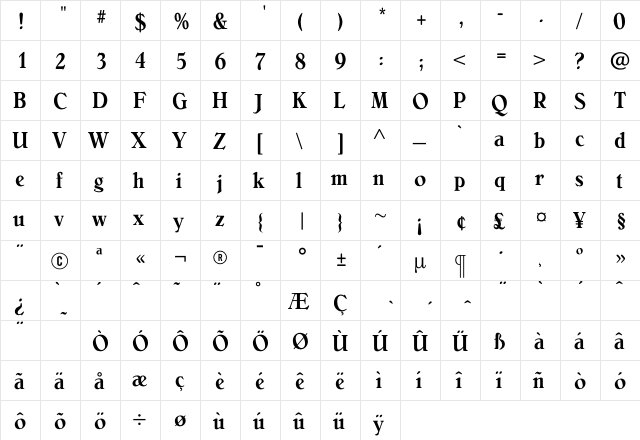
BelliniMediumCondensed Regular Font Preview
BelliniMediumCondensed Regular
BelliniMediumCondensed Regular Font Details
Design Context for BelliniMediumCondensed Typeface
BelliniMediumCondensed is a composed and adaptable typeface that performs quietly and consistently across a wide range of design contexts. The condensed width makes it efficient for tight spaces without sacrificing legibility.